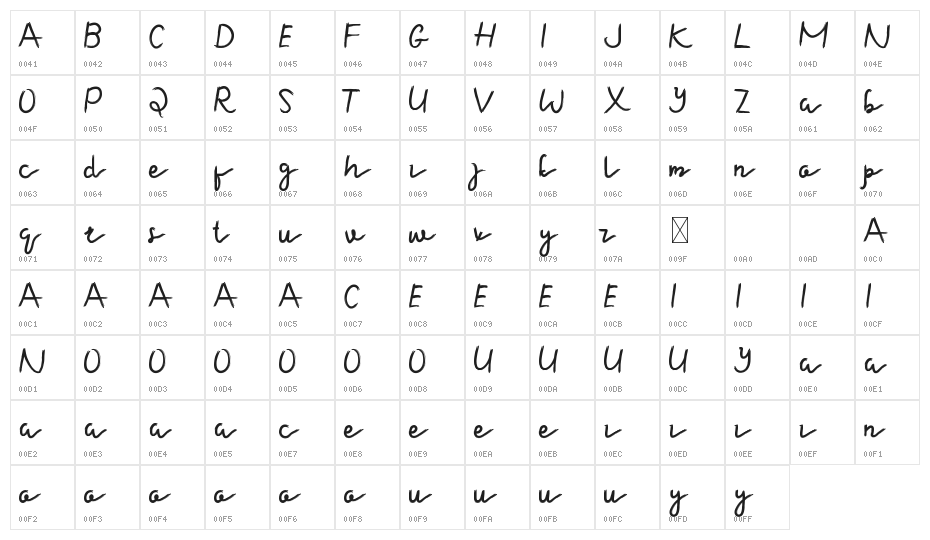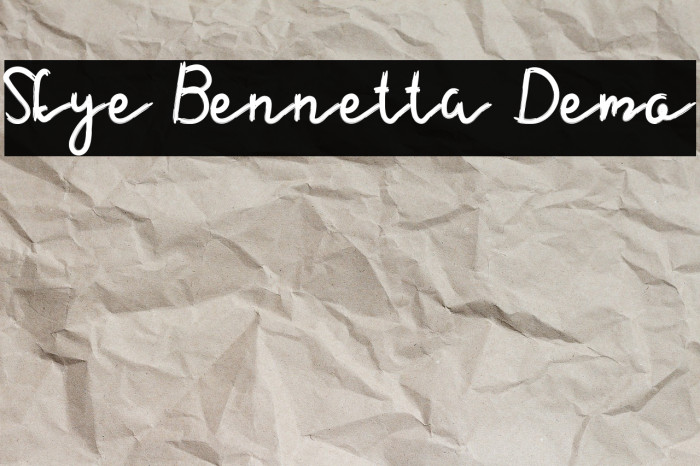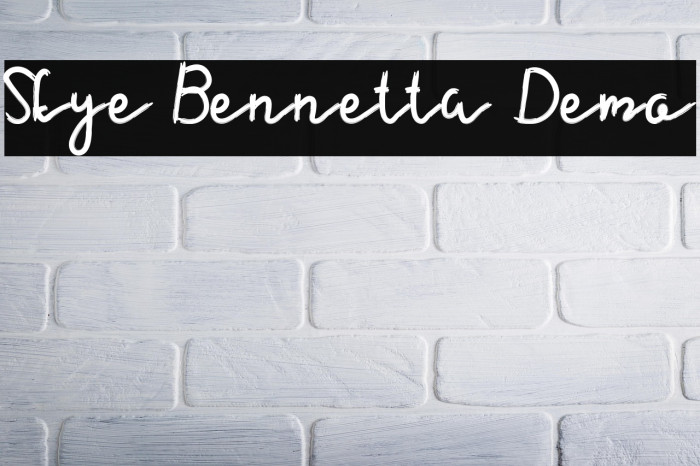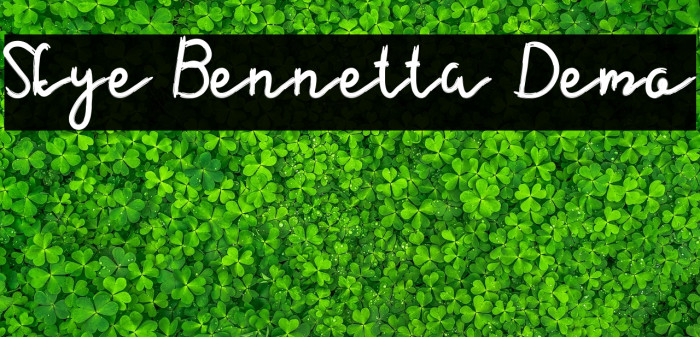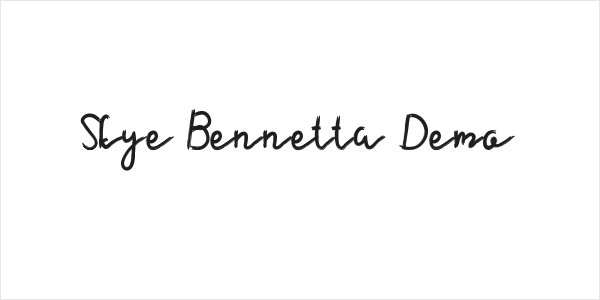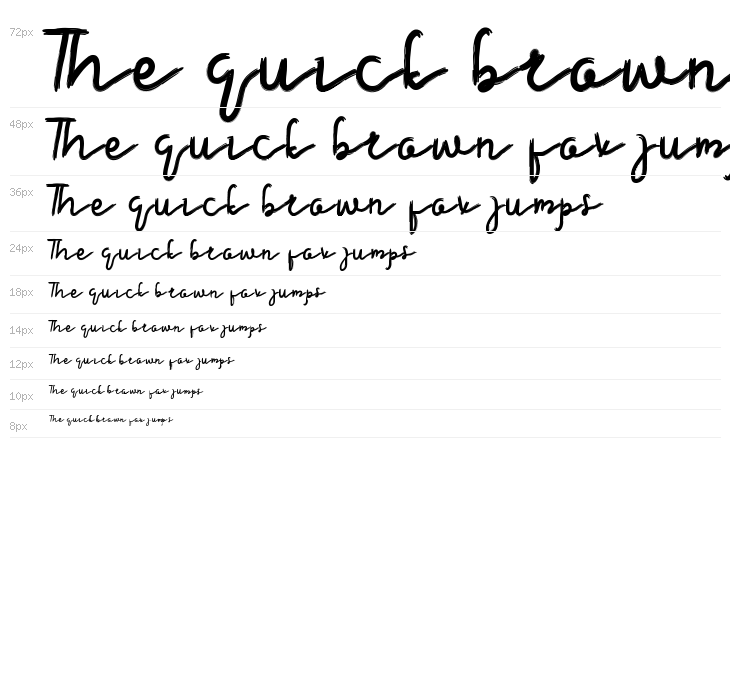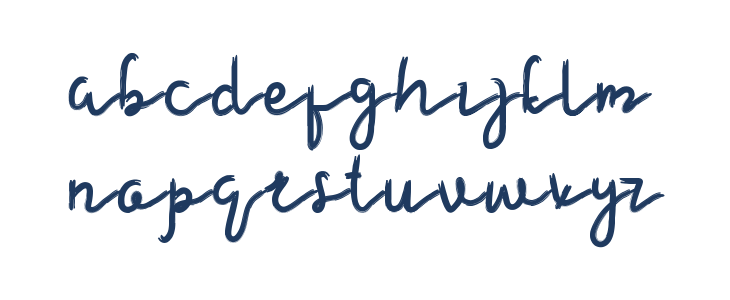
Skye Bennetta Demo Font
Skye Bennetta Demo Description
This font exudes a lively and dynamic handwritten style, characterized by its fluid and slightly irregular strokes. The letters are connected in a cursive manner, giving it a personal and informal touch. The uppercase and lowercase letters maintain a consistent style, with a playful yet elegant appearance. The strokes vary in thickness, adding a sense of movement and energy to the text. This font is perfect for projects that require a personal, creative, and approachable feel, such as invitations, greeting cards, or artistic branding.
| Proposed Projects | Ideal for invitations, greeting cards, artistic branding, and creative projects. |